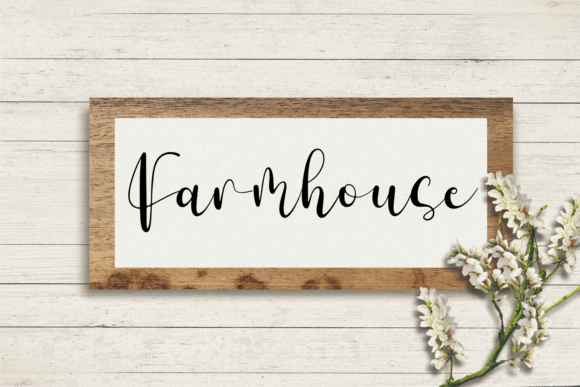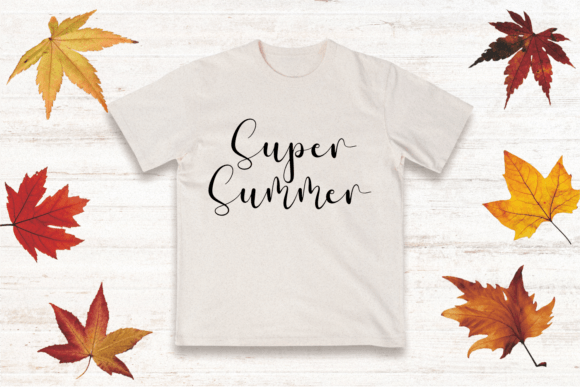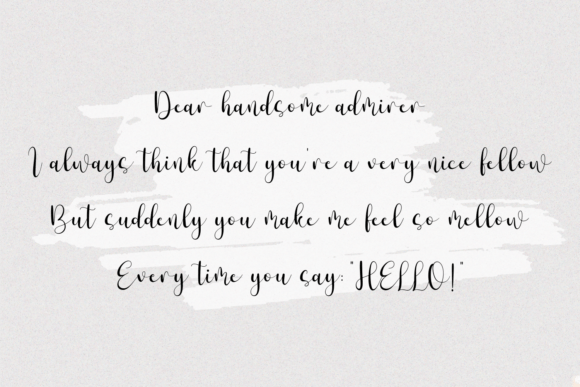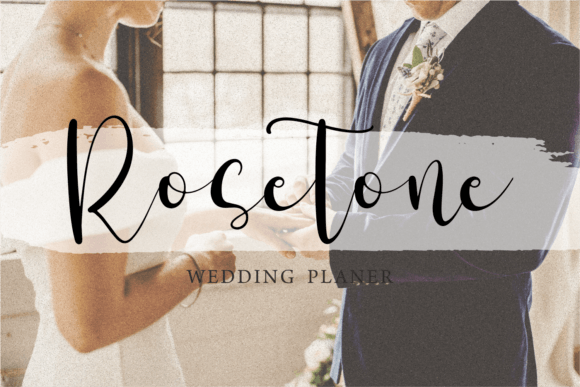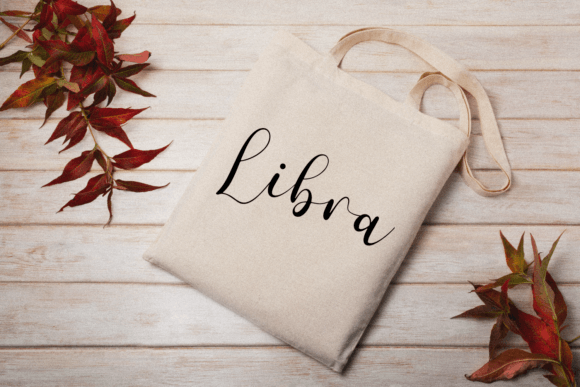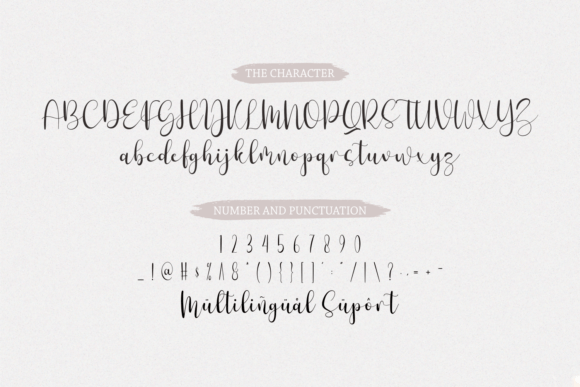
The Designer’s Delight: Fivety Miles Font
I’ll never forget the struggle I faced while working on a project for a client who wanted a elegant, handwritten font that exuded sophistication. I scoured the internet, tried countless fonts, but nothing seemed to fit the bill. That was until I stumbled upon Fivety Miles, a flowing handwritten font that instantly captured my heart. In this article, I’ll share my love for this beautiful font, its features, and how to make the most of it in your designs.
A Personal Review: What I Love About Fivety Miles
Fivety Miles has been a game-changer for my designs, and here’s what I love about it:
- ✨ Elegant and sophisticated feel: Fivety Miles has an incredibly distinct and timeless style that elevates any design.
- ✅ Highly legible: Despite its elegant touch, the font remains clear and easy to read, making it perfect for body text.
- 💫 Versatile: Fivety Miles works beautifully for both digital and print designs, from social media graphics to branding materials.
While Fivety Miles is an amazing font, there are a few things to keep in mind:
- 🤔 Limited use in very small sizes: Fivety Miles is best used in sizes above 10-12 points to maintain its elegance and legibility.
- ⚠️ Occasional kerning issues: As with any font, you might encounter some kerning issues, especially with certain letter combinations.
Fivety Miles was created by a talented designer who wanted to craft a font that exuded elegance and sophistication. Inspired by classic handwritten scripts, the designer poured their heart and soul into creating a font that’s both timeless and versatile.
| What type of projects is Fivety Miles best suited for? | Fivety Miles is perfect for projects that need an elegant, handwritten touch, such as branding materials, social media graphics, and invitations. |
| Does Fivety Miles come with OpenType features? | Yes, Fivety Miles includes OpenType features like ligatures and stylistic alternates to help you create stunning designs. |
In conclusion, Fivety Miles is a beautiful, elegant font that’s perfect for designers, crafters, and creative hobbyists. With its timeless style, versatility, and OpenType features, it’s sure to become a favorite in your design arsenal.